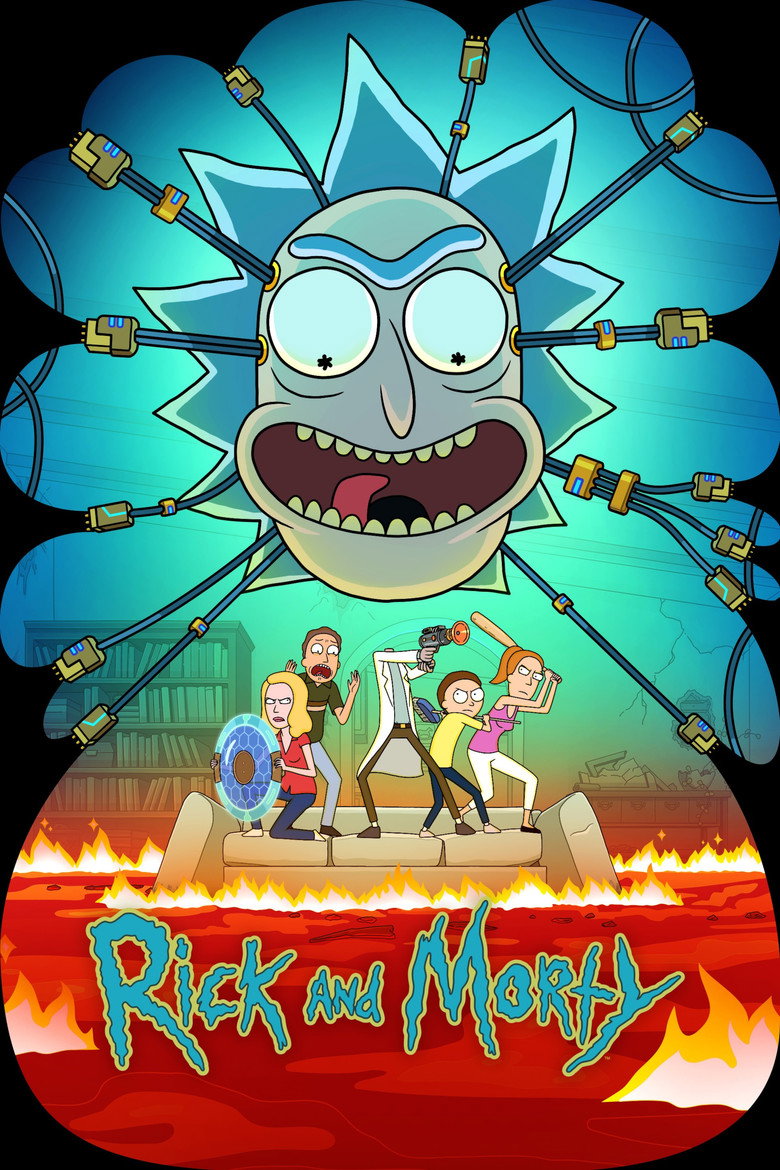
RICK AND MORTY
About the Rick and Morty font
Rick and Morty's logo is a wobbly cartoon display. Bangers delivers that same chaotic, sci-fi comedy energy.
What font is used in the Rick and Morty logo?+
The original Rick and Morty logo uses custom lettering. This generator recreates the look with Bangers — a free, open-license font you can style and download.